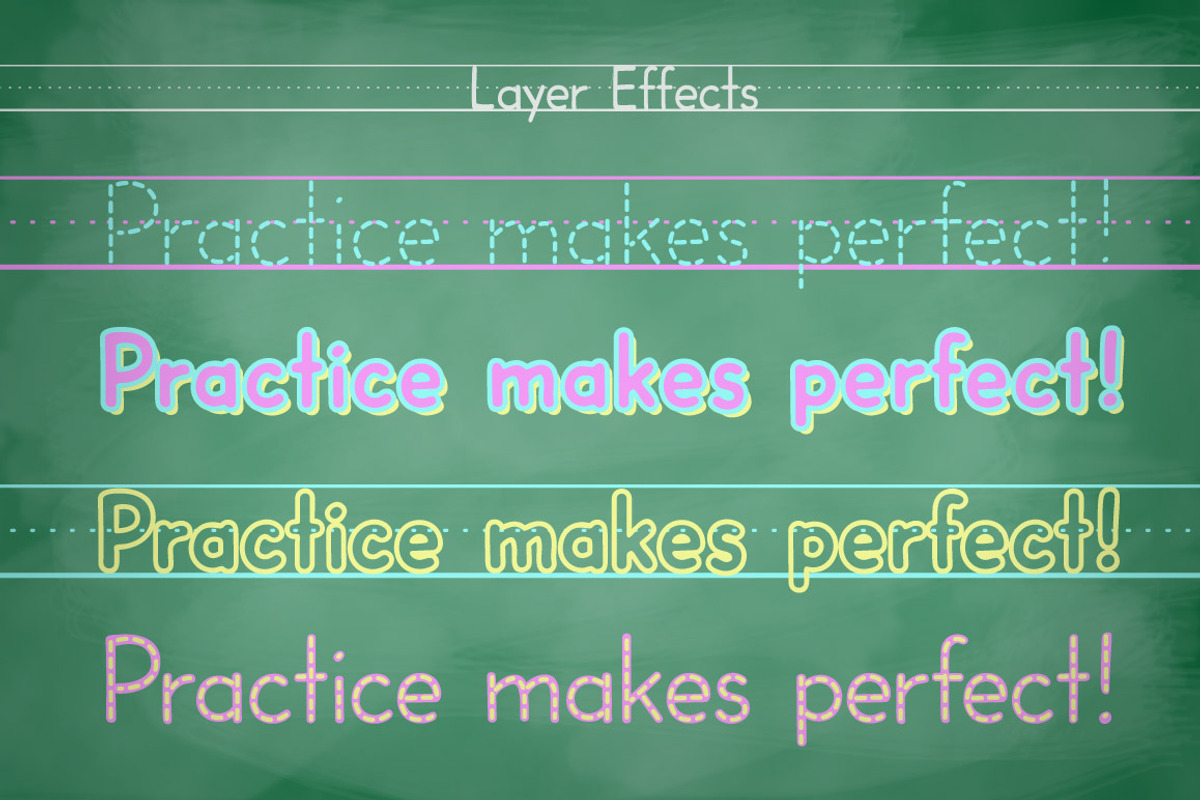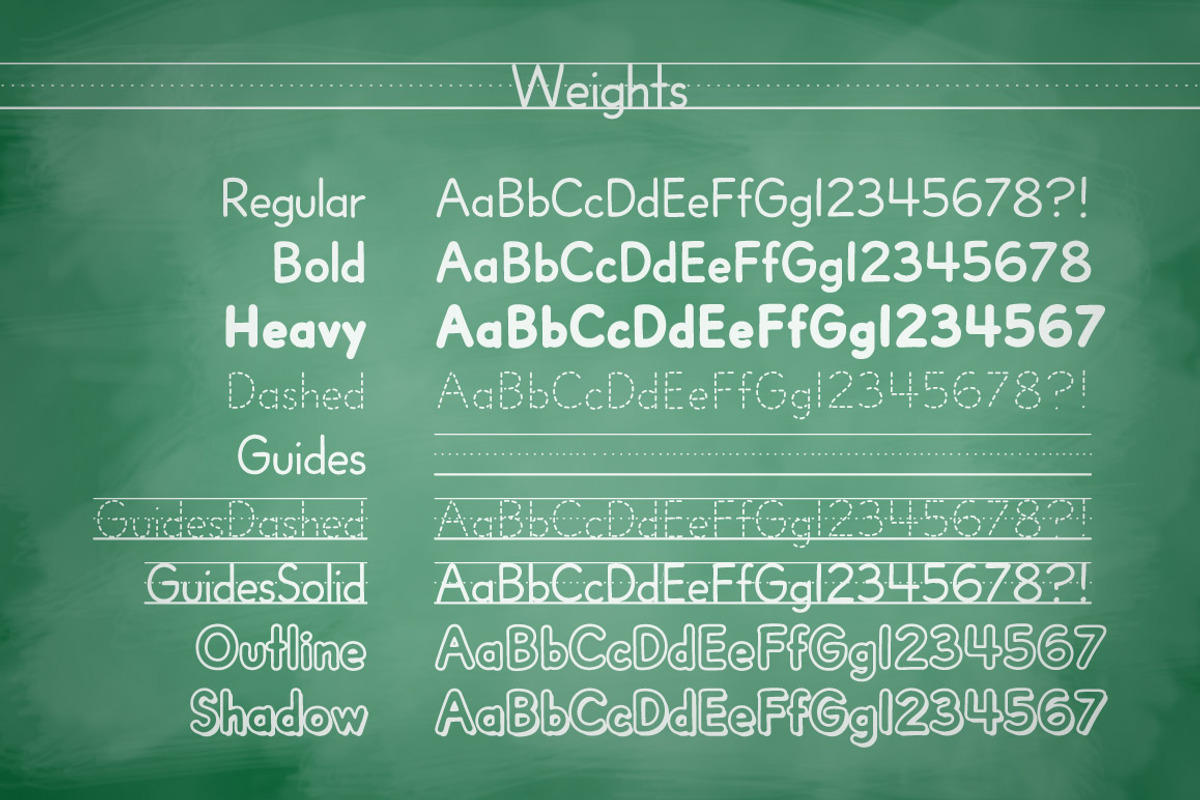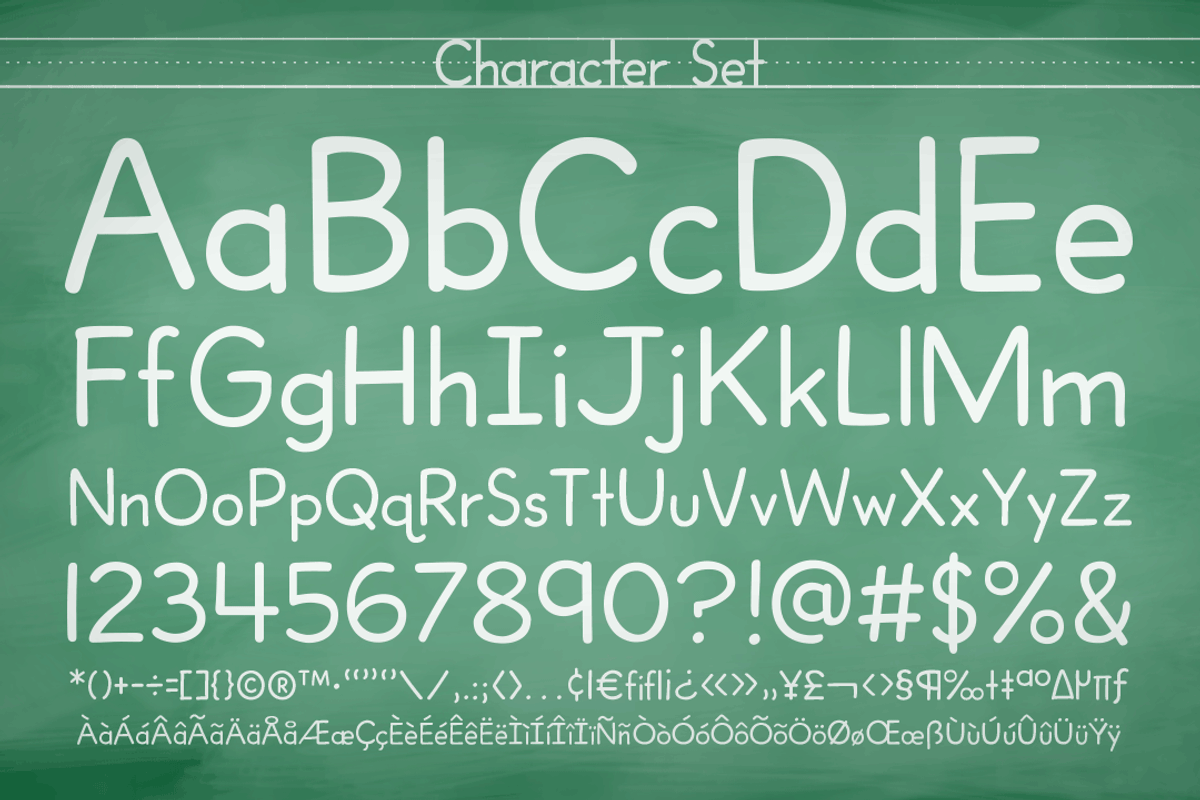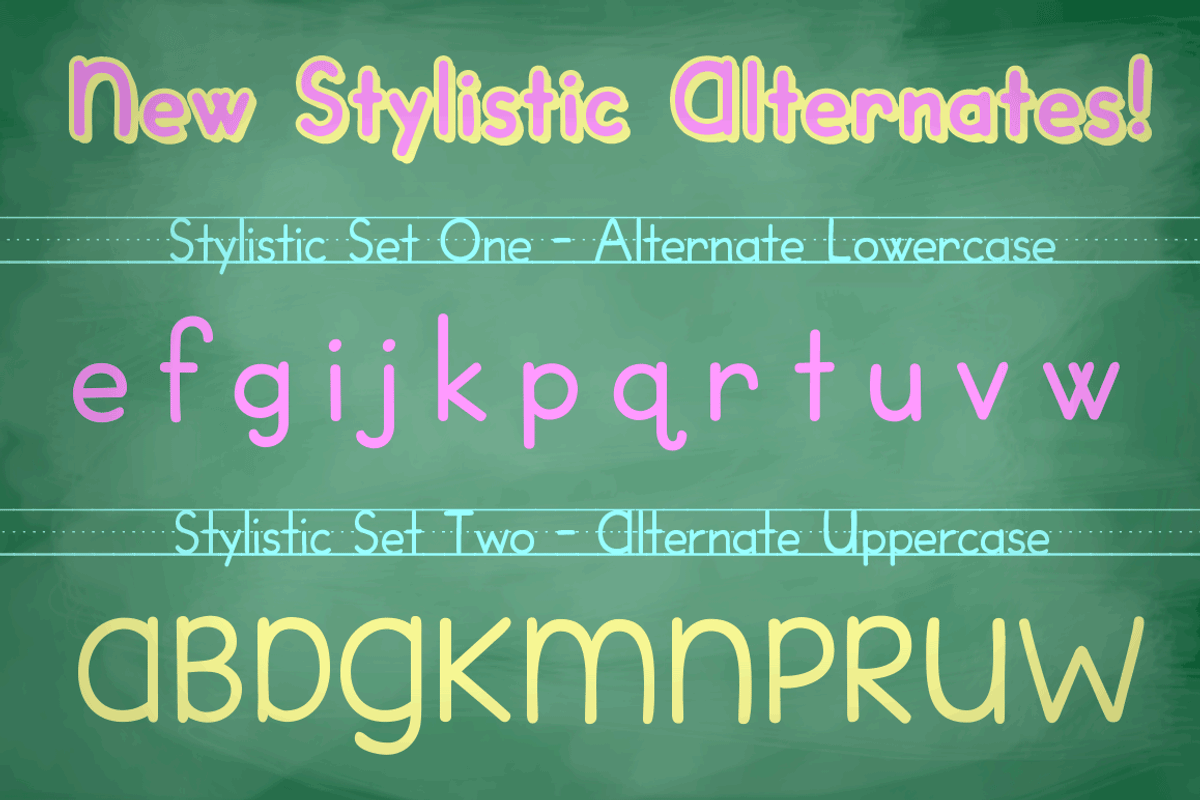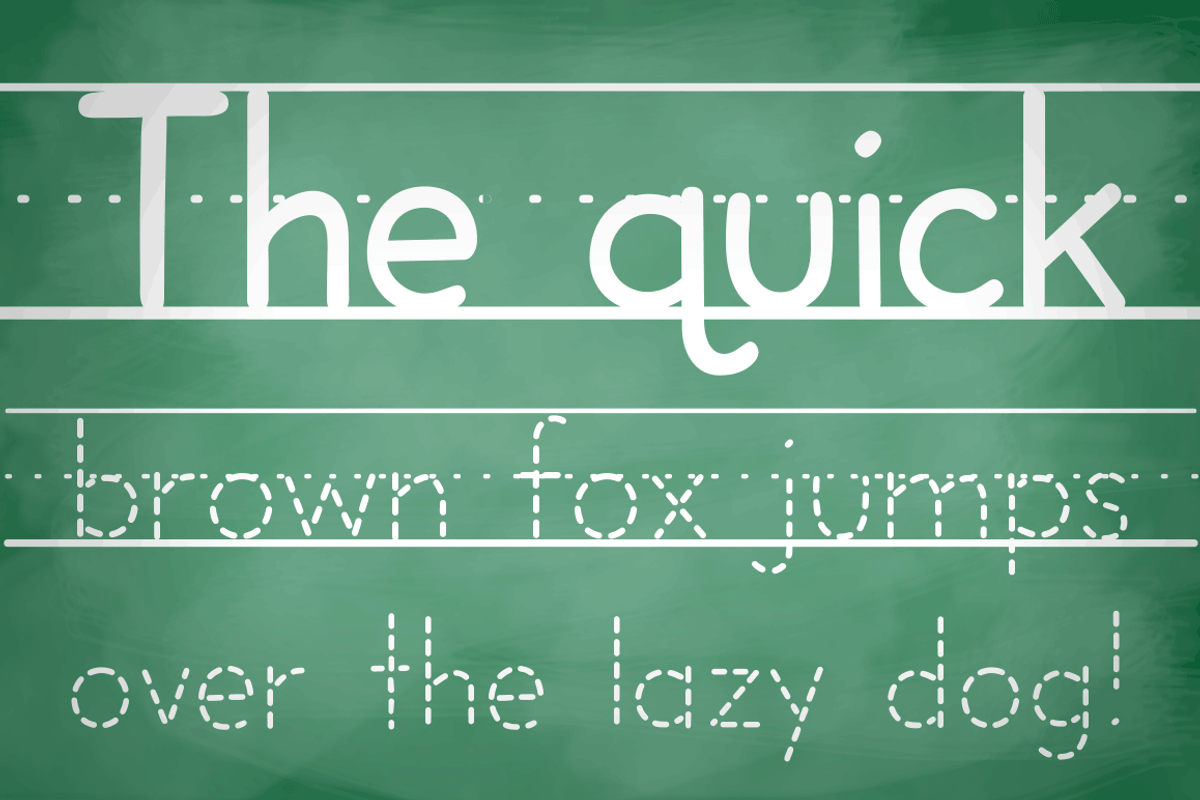
Dash to School - a handwriting font
Dash to School - a handwriting font by Comicraft Fonts is a font selected for branding, posters, packaging, typography.
Why Dash to School - a handwriting font is worth a look
Dash to School - a handwriting font by Comicraft Fonts fits naturally into Branding, posters, packaging, typography.